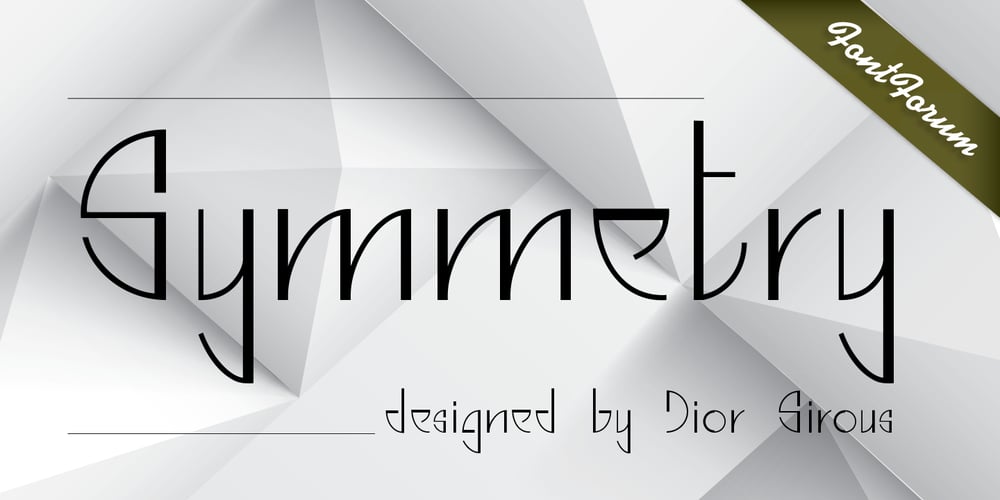
Symmetry Font Family was designed by published by URW Type Foundry. Symmetry contains 1 styles and family package options. Symmetry is best suited for display use, inspired by circle shape and lines and curves, also space.